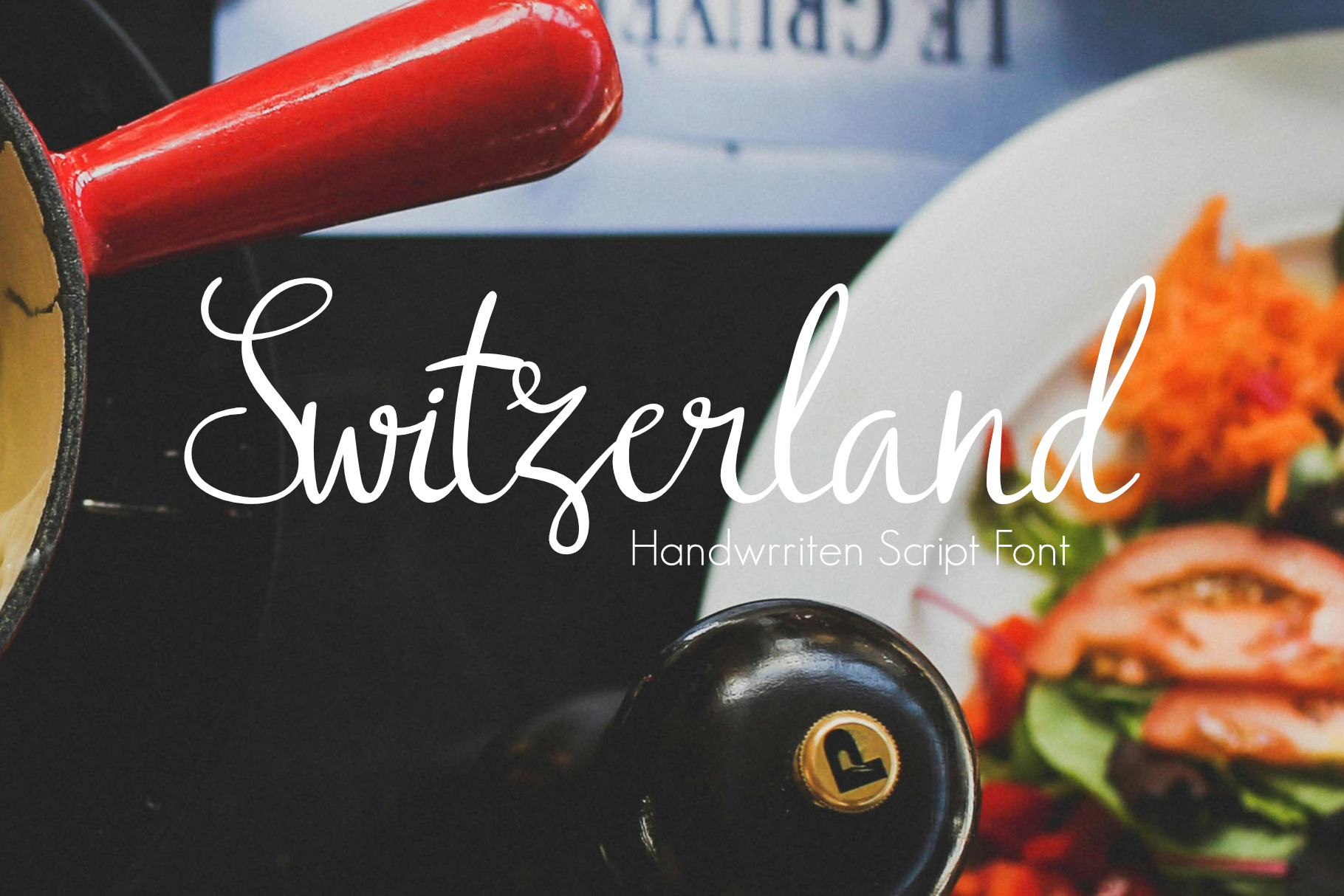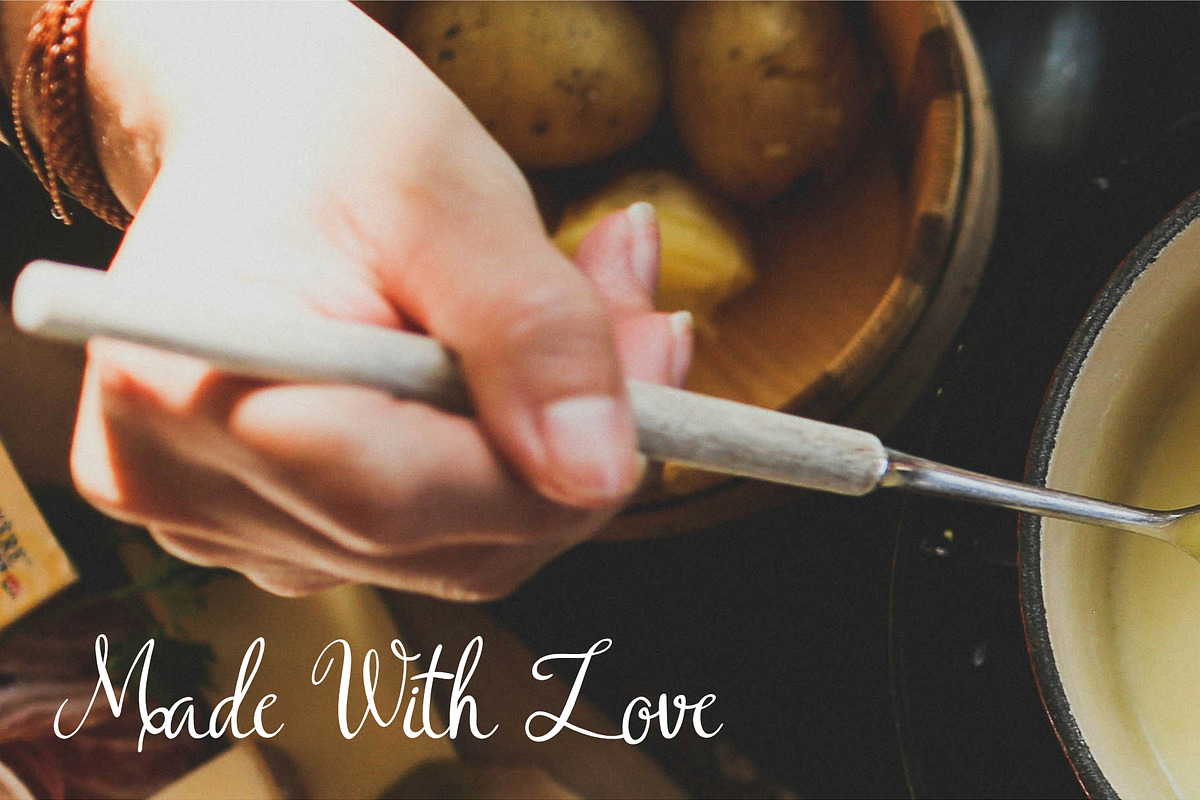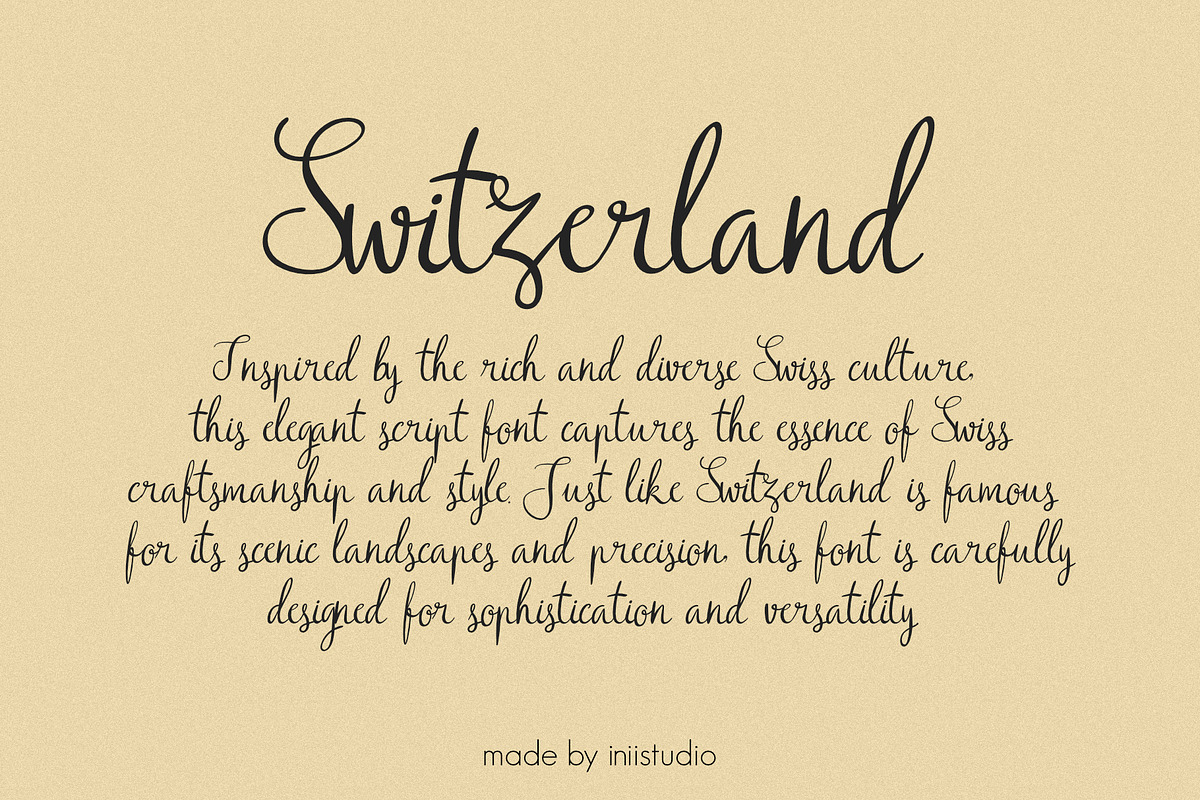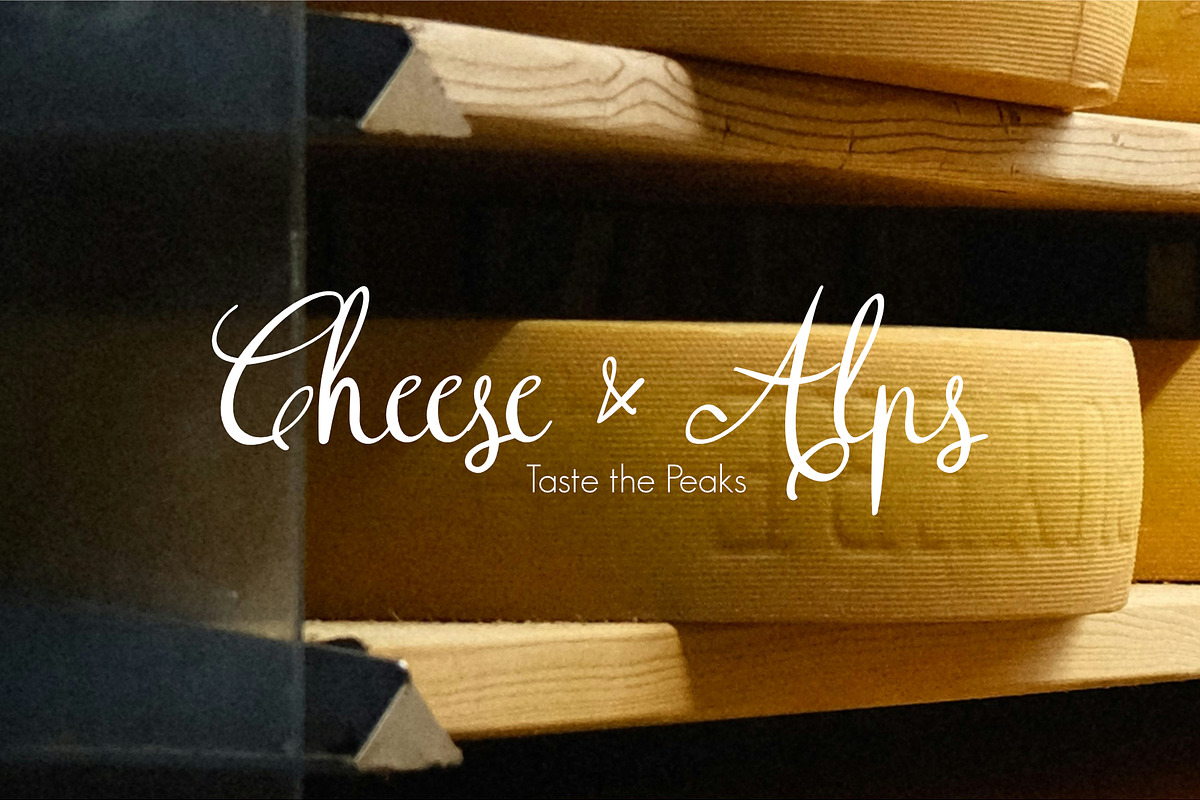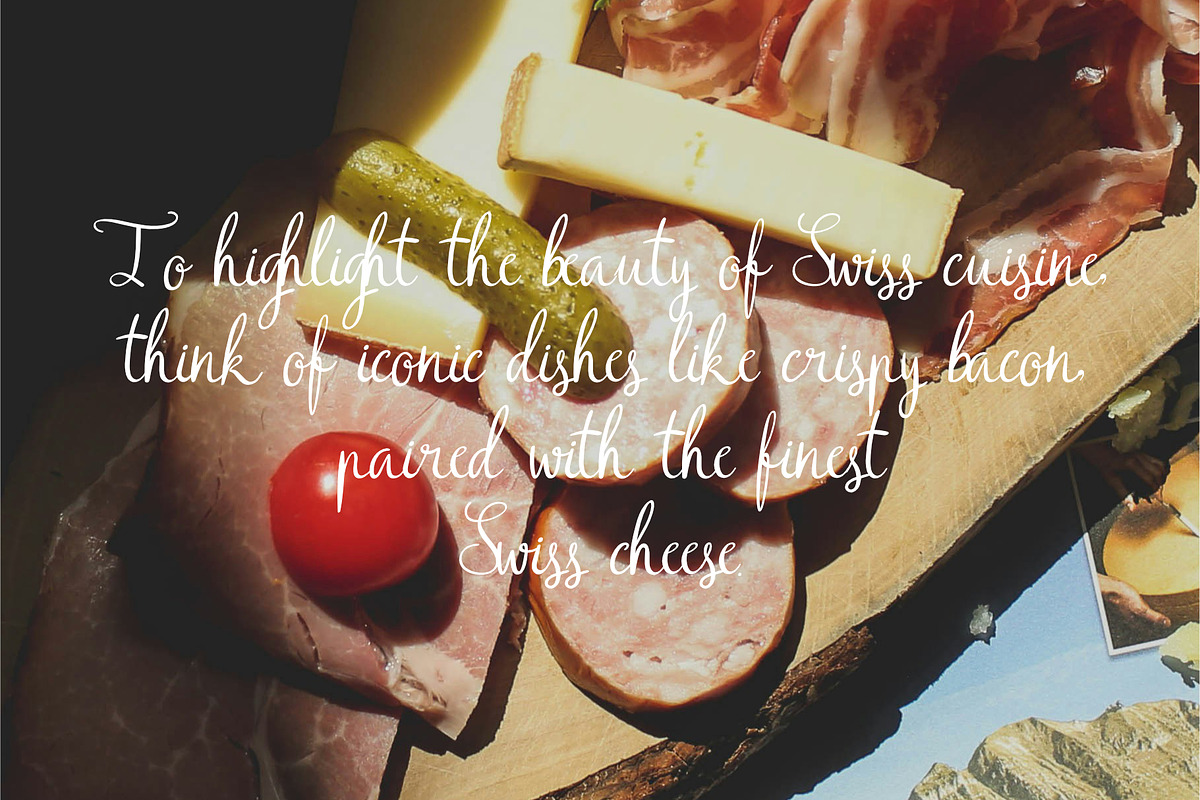
Switzerland - Script Font
Use the Switzerland font to add a unique touch to your designs, whether it’s for restaurant menus, food packaging, or any project that needs a dash of European flair.
Let the charm of Swiss tradition shine through your designs with the Switzerland Script Font!